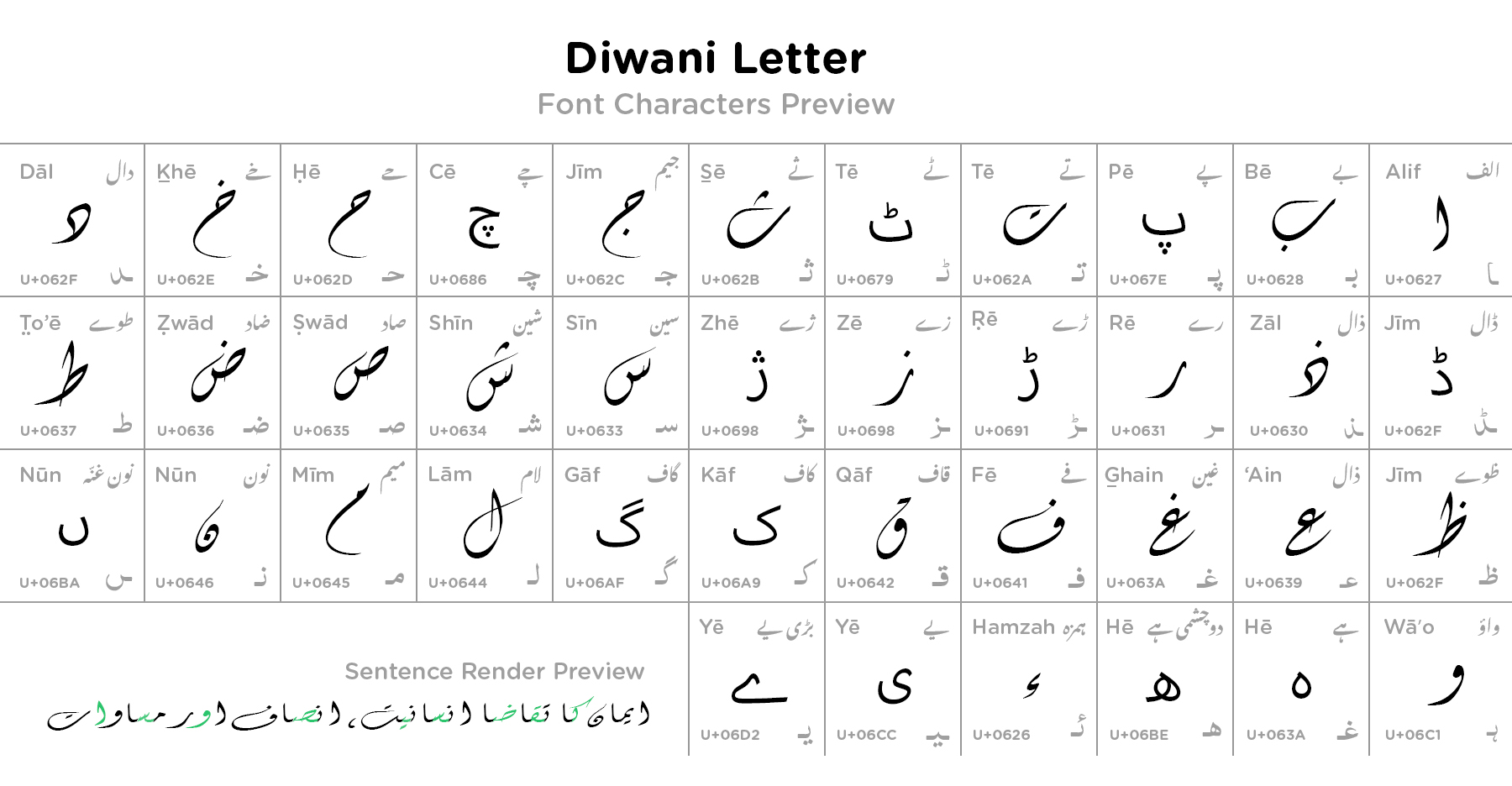
Diwani Letter is a cursive, flowing, and delicate Arabic font from Microsoft inspired by the traditional Divani script but with a modern twist. Divani is an elegant Arabic script with a sense of movement that can be recognized by its elongated tails and delicate curly edges. It is often used decoratively in calligraphy art, logos, and invitations due to its formal and intricate appearance. Launched on August 29, 2016, it offers 499 characters and symbols that are compatible with multiple languages. This cursive font features varying thicknesses and intricate designs, making it perfect for decorative purposes like branding, logos, and invitations. Although legibility might be a bit challenging at smaller sizes due to its ornate style, Diwani Letter adds elegance and sophistication to any project with its graceful curves and flowing strokes. With cursive letters, elongated ascenders and descenders, decorative loops, and curls, the playful look of this font makes it useful for calligraphy. Moreover, a sharp contrast between thin strokes and the background adds to its overall look and appeal.